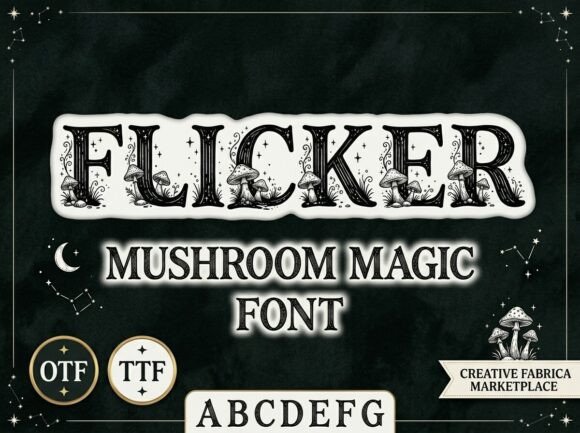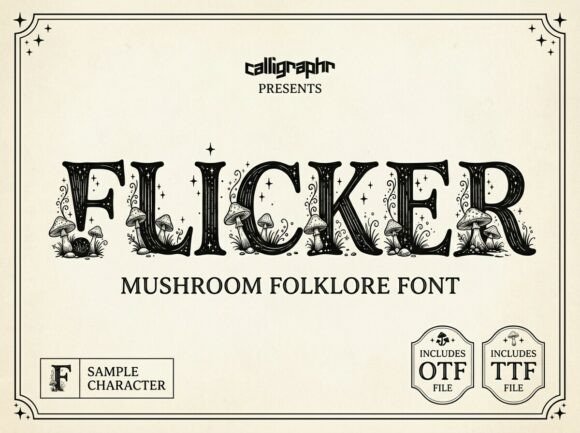
The Magic of Flicker Font: Elevate Your Designs with a Stunning Display Font
Have you ever been in the middle of a design project, pouring your heart and soul into every detail, only to realize that something is missing? You’re not alone. I’ve been there too. One of my most memorable experiences was working on a branding project for a boutique hotel. The client wanted a unique, eye-catching logo that would reflect the elegance and charm of their establishment. As I scrolled through font after font, nothing seemed quite right. That was until I stumbled upon a font that changed everything – a decorative display font that was designed to be the center of attention.
I’m excited to introduce you to the Flicker Font, a stunning decorative display font that’s sure to elevate your designs and make them stand out from the crowd. With its unique artistic elements and strong visual personality, this font is perfect for creators who want to break away from the ordinary.
What Makes Flicker Font Special?
Flicker Font is a versatile decorative display font that’s designed to make a statement. Its unique features include:
- ✨ Unique artistic elements that add a touch of elegance to your designs
- ✅ Strong visual personality that grabs attention
- 💼 Perfect for bold headlines, artistic logos, and creative packaging
- 🎨 Maintains a professional and polished finish
Important Note
⚠️ IMPORTANT NOTE BEFORE PURCHASE: This font is an ALL-CAPS (Uppercase Only) display typeface. It does not include lowercase letters. It is specifically designed for high-impact headlines, logos, and decorative initials where every letter is a work of art.
Honest Review
- ✨ The unique artistic elements that make it stand out
- ✅ The strong visual personality that grabs attention
- 💼 The versatility of the font, making it perfect for various design projects
⚠️ As mentioned earlier, this font is an ALL-CAPS display typeface, which may limit its use for body text or other applications that require lowercase letters. Additionally, some users may find the font a bit too ornate for certain design projects.
Flicker Font was inspired by the works of renowned designers who sought to push the boundaries of typography. The font’s unique artistic elements and strong visual personality are a testament to the power of creative experimentation. The designer behind Flicker Font aimed to create a font that would inspire creativity and elevate designs to new heights.
Q: Is Flicker Font suitable for body text?
A: While Flicker Font is a beautiful decorative display font, it’s not ideal for body text. Its unique artistic elements and strong visual personality make it better suited for headlines, titles, and other display text.